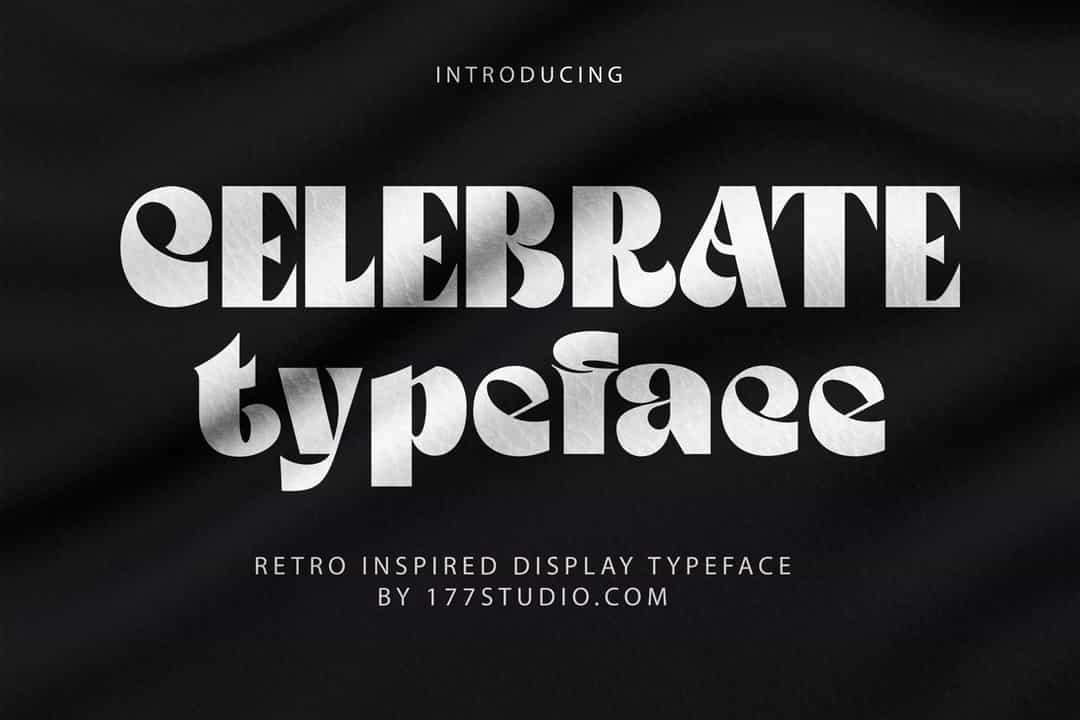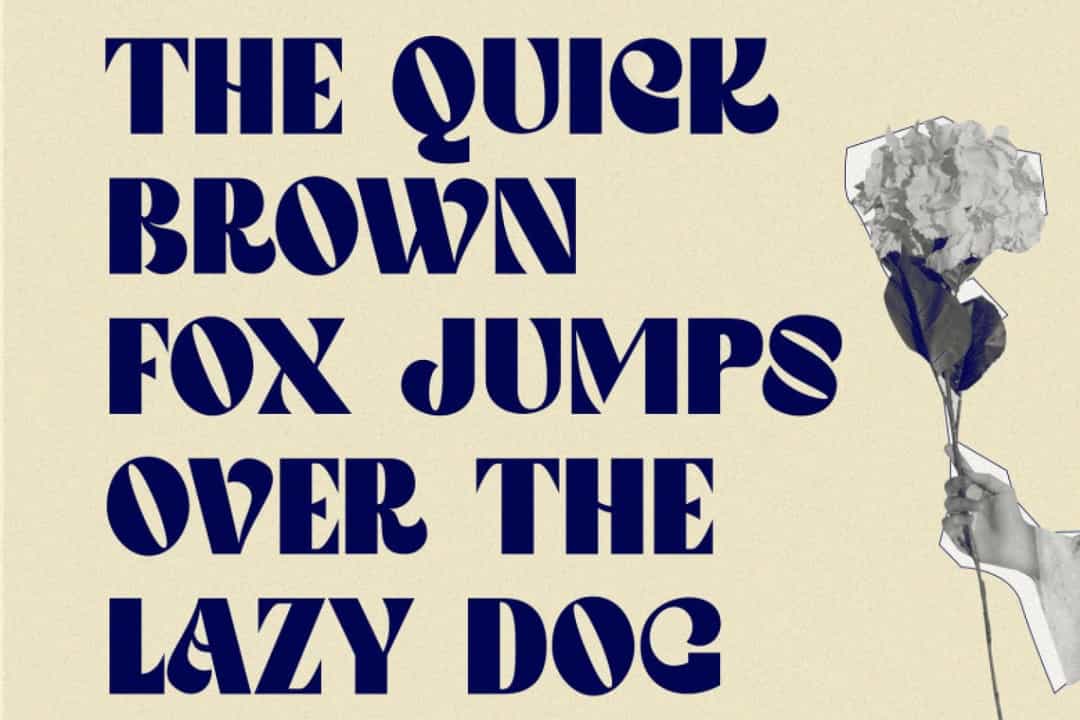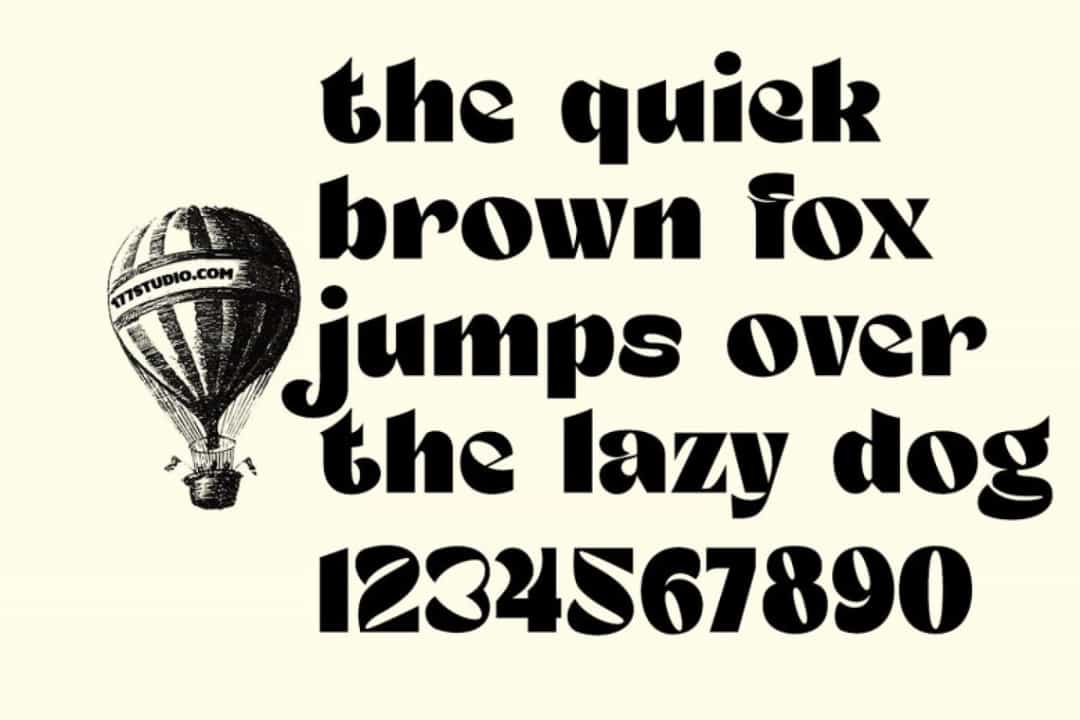
CELEBRATE is an eye-catching retro display font. A modern take on its timeless retro style, CELEBRATE is bound to leave an impactful mark on your product or design project. Packed with features, CELEBRATE is ready to become part of your design arsenal for use with logotype heavy headings, beer labels and much more!